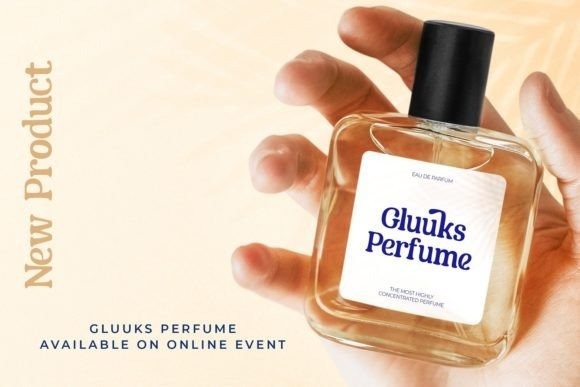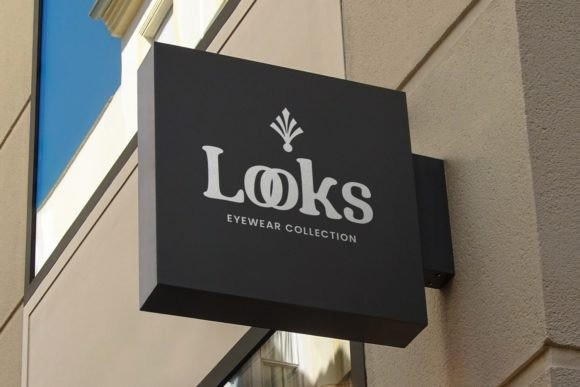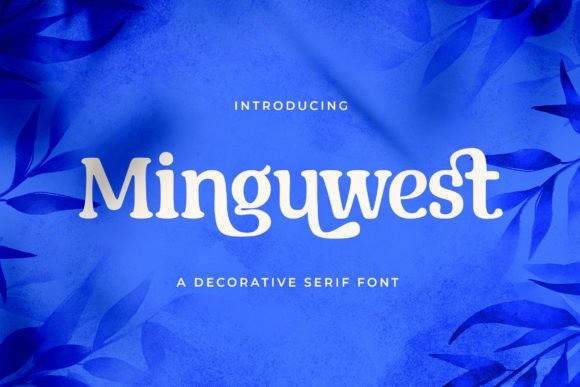
Minguwest Font
Minguwest Font is an authentic and decorative serif font. It can easily be matched to an incredibly large set of projects, so add it to your creative ideas and notice how it makes them stand out!